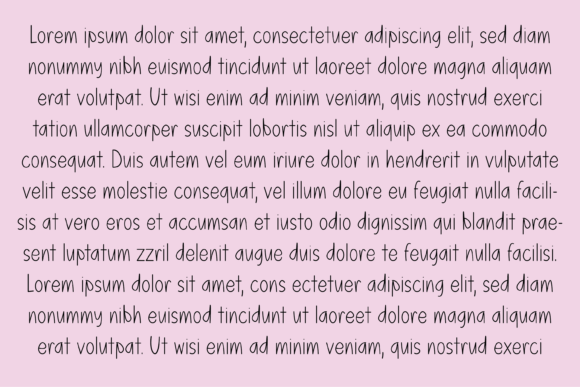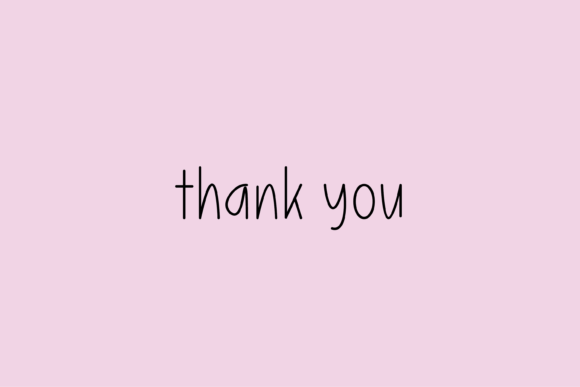
Introducing Chut Font: The Perfect Handwritten Font for Your Creative Projects
Are you tired of using the same old fonts for your designs? Look no further than Chut Font, a simple and friendly handwritten font that’s sure to brighten up any project. With its whimsical and quirky style, Chut Font is perfect for designers and crafters who want to add a personal touch to their work.
What Makes Chut Font So Special?
Chut Font is a unique and charming typeface that’s perfect for a wide range of design projects. Its handwritten style gives it a personal and approachable feel, making it ideal for use in logos, wedding invitations, quotes, advertisements, and more. Whether you’re a professional designer or a crafty DIY enthusiast, Chut Font is sure to become a favorite in your collection.
Key Features of Chut Font
- Simple and Friendly: Chut Font has a simple and friendly style that’s easy to read and understand.
- Whimsical and Quirky: With its whimsical and quirky style, Chut Font adds a touch of personality to any design.
- Handwritten Style: Chut Font’s handwritten style gives it a personal and approachable feel.
- Versatile: Chut Font is perfect for a wide range of design projects, from logos and wedding invitations to quotes and advertisements.
Chut Font is a versatile typeface that can be used in a variety of design projects, including:
- Logos: Chut Font is perfect for creating unique and memorable logos for businesses and brands.
- Wedding Invitations: Add a touch of elegance and whimsy to your wedding invitations with Chut Font.
- Quotes: Use Chut Font to create inspiring and eye-catching quotes for social media and more.
- Advertisements: Chut Font is perfect for creating eye-catching and effective advertisements.
- Print: Use Chut Font in print materials, such as brochures, flyers, and posters.
- Magazines: Add a touch of personality to your magazine designs with Chut Font.
Why Choose Chut Font?
There are many reasons why Chut Font is a great choice for designers and crafters. Here are just a few:
- Unique Style: Chut Font has a unique and charming style that’s sure to stand out.
- Easy to Read: Chut Font is easy to read and understand, making it perfect for use in a wide range of design projects.
- Versatile: Chut Font can be used in a variety of design projects, from logos and wedding invitations to quotes and advertisements.
- High-Quality: Chut Font is a high-quality typeface that’s designed to deliver exceptional results.
Tips for Using Chut Font
Here are a few tips for using Chut Font in your design projects:
- Use it Sparingly: Chut Font is a bold and eye-catching typeface, so use it sparingly to avoid overwhelming your design.
- Pair it with Other Fonts: Chut Font pairs well with other fonts, so don’t be afraid to experiment with different combinations.
- Experiment with Colors: Chut Font looks great in a variety of colors, so experiment with different colors to find the perfect look for your design.
Chut Font is a simple and friendly handwritten font that’s perfect for designers and crafters who want to add a personal touch to their work. With its whimsical and quirky style, Chut Font is sure to brighten up any design project. Whether you’re creating logos, wedding invitations, quotes, advertisements, or more, Chut Font is a great choice. So why wait? Download Chut Font today and start creating amazing designs!